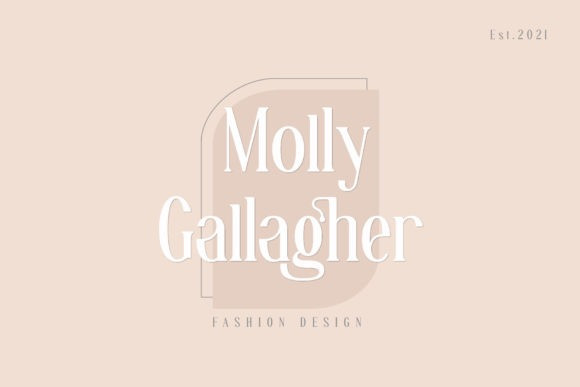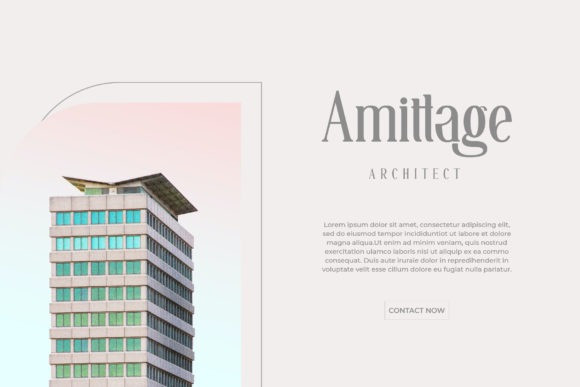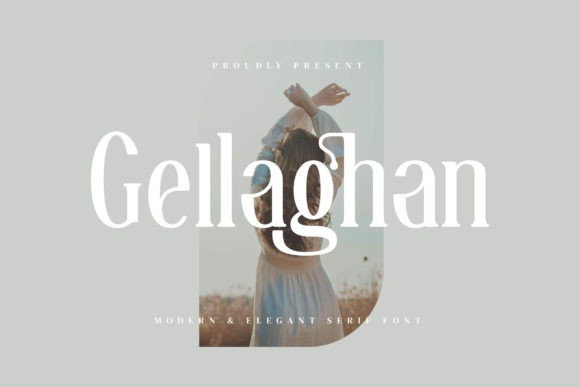
Gellaghan Font
Gellaghan Serif Font is a modern and elegant serif font. This font is PUA encoded which means you can access all of the glyphs and swashes with ease! Fall in love with its incredibly versatile style and use it to create spectacular designs!